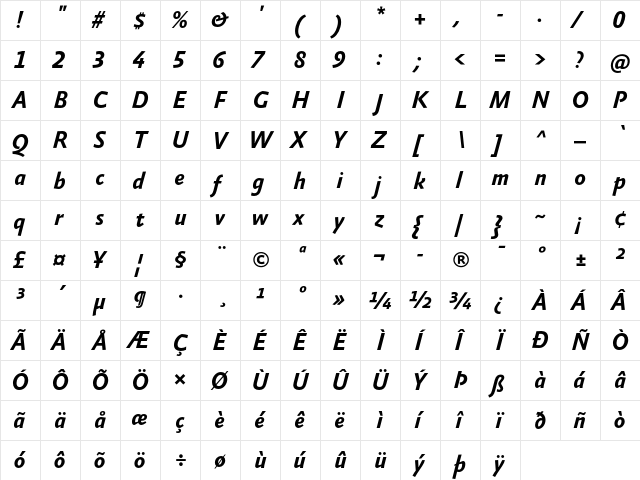
AbsaraSansTF-BoldItalic Regular Font Preview
Design Context for AbsaraSansTF-BoldItalic Typeface
AbsaraSansTF-BoldItalic takes a measured approach to typography — its balanced proportions and neutral character make it a reliable workhorse for both digital and print work. Its italic angle brings a sense of urgency and motion to the letterforms. The heavy weight commands attention and anchors typographic hierarchies.
Pro Tip: Use AbsaraSansTF-BoldItalic for emphasis, pull quotes, and subheadings where its slanted energy can add rhythm to the layout.